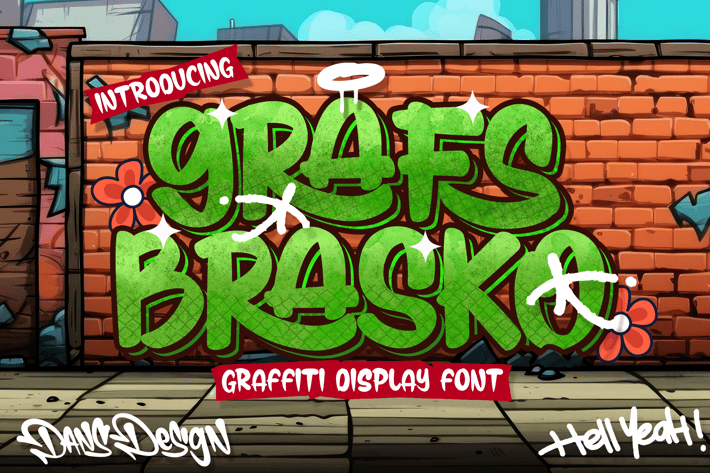
Grafs Brasco Modern Display Graffiti Font
Grafs Brasco Modern Display Graffiti Font a distinct, highly detailed. GRAFFITI Display Font.
It would make a great choice for exquisite retro-urban designs, business branding, logos, Apparel designs, and more.